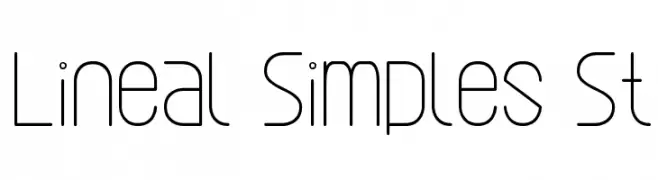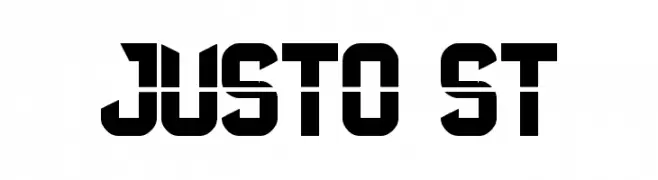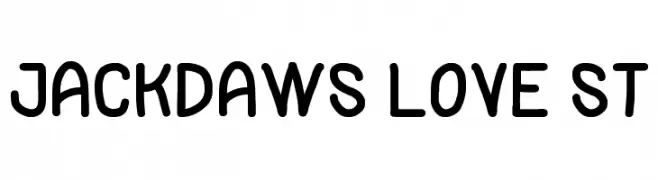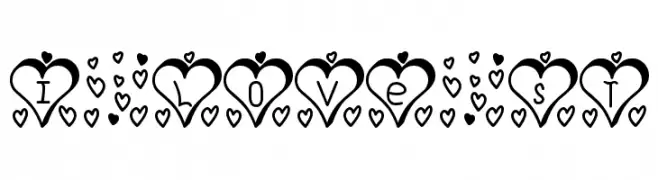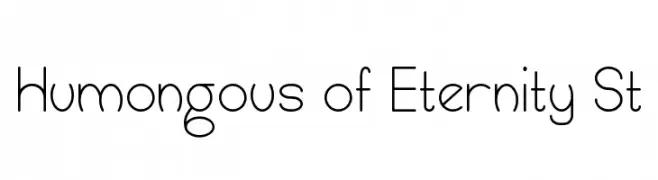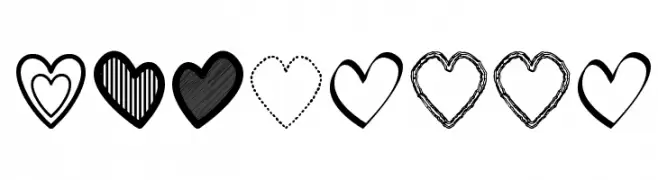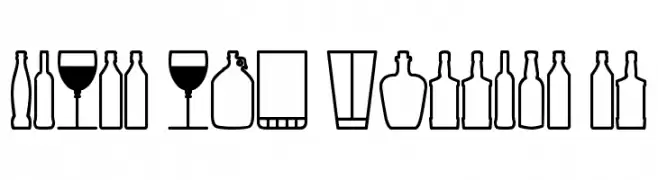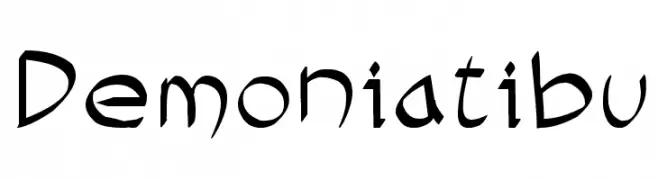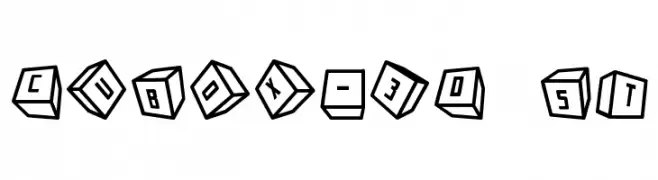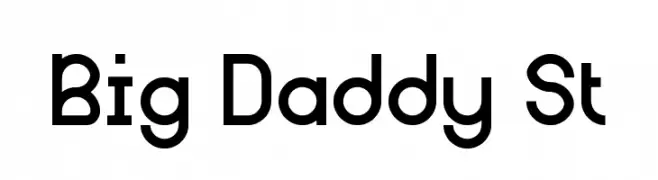
A bold, geometric font with a modern, industrial style.
A modern, slightly italicized font with rounded edges and balanced proportions.
A bold, geometric font with a modern, industrial aesthetic.
A playful, rounded font with a whimsical and friendly style.
A bold, geometric font with a condensed and modern style.
A whimsical font with characters enclosed in heart shapes, ideal for romantic themes.
A modern, minimalist font with rounded edges and uniform stroke width.
A playful decorative font made entirely of diverse heart icons.
A modern, geometric font with an italic slant and hexagonal pattern.
A display font made from glass and bottle silhouettes.
A bold, playful font with a double outline and rounded characters.
A modern, geometric font with a monospaced appearance and consistent stroke width.
A bold, geometric font with a modern and futuristic style.
An edgy, artistic font with sharp angles and irregular strokes.
A bold, 3D cube font with a playful and modern geometric style.
A bold, geometric font with a modern, industrial style.
A bold, shadowed font with a modern, geometric style.
A bold, futuristic font with sharp, angular lines and a strong geometric structure.
A bold, geometric font with a modern and clean design.
A collection of bold, clear astronomical symbols with a cosmic theme.
A modern, decorative font with diagonal stripe patterns in each character.
A modern, geometric font with sleek lines and a sophisticated appearance.
A playful, bold outline font with dynamic, rounded uppercase letters.
A bold, playful, hand-drawn style with thick strokes and a whimsical feel.
A flowing, handwritten font with elegant uppercase and playful lowercase letters.
A stylish, handwritten font with elongated, flowing letterforms.
An elegant, flowing script font with high contrast and intricate letterforms.
A delicate monoline script font with a flowing, handwritten style.
( Solidtype - bit.ly/2OxZn2V )
A sophisticated script font with flowing, interconnected characters and elegant flourishes.
( Solidtype - bit.ly/2OxZn2V )
An elegant script font with fluid, cursive strokes and decorative loops.
A delicate monoline script font with elegant, flowing strokes.
A bold, rounded font with smooth curves and a modern appearance.
( Solidtype - bit.ly/2OxZn2V )
A bold, outlined font with a modern, geometric style.
( Solidtype - bit.ly/2OxZn2V )
A bold, modern sans-serif font with clean lines and uniform strokes.